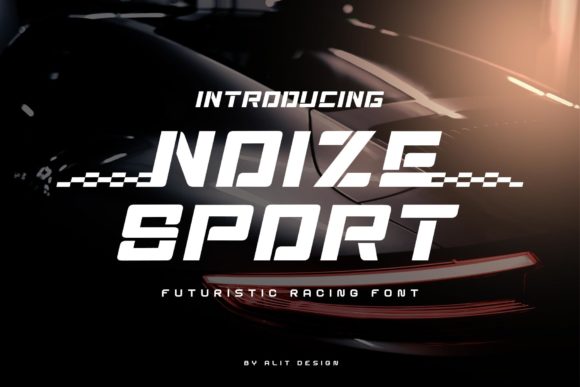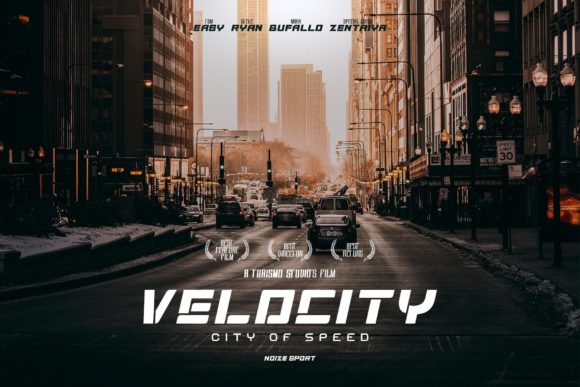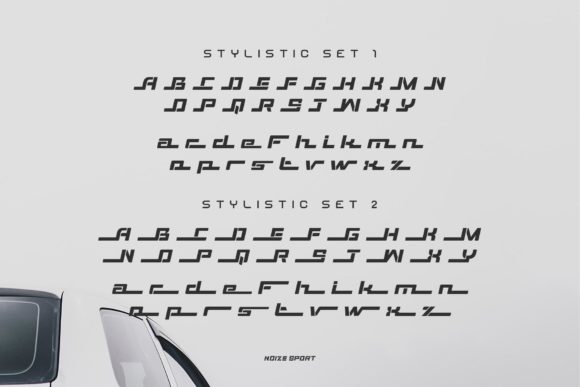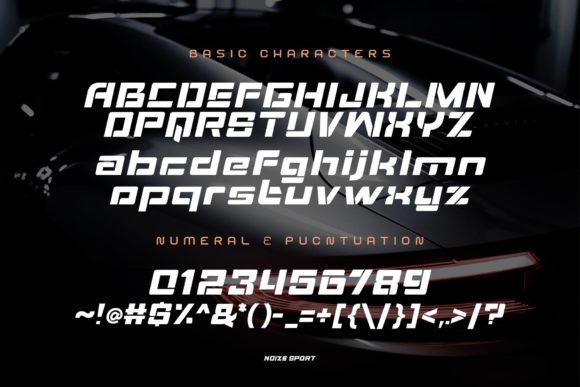
Noize Sport Font: Bold Display Typography for Racing Logo Design
About the Noize Sport Font
Presenting Noize Sport Font, a unique and stylish typeface that will make your work stand out. Noize Sport is a display font inspired by the sports and racing industry. This bold and strong font with an impression of speed is perfect for making sports and racing-themed designs. It can be used for making logo designs, car stickers, racing event titles, and other items with sport race themes.
Noize Sport’s bold, aggressive form makes it ideal for headlines, posters, and short impactful branding elements. Its high contrast and strong strokes lend themselves well to large-scale applications where readability at a distance is key. Avoid using it for body text or UI elements; the weight and stylistic flourishes would hinder legibility in smaller sizes or continuous text.
Consider pairing Noize Sport with a clean sans-serif like Open Sans for supporting text or a more geometric sans-serif like Futura for a modern, high-contrast look. For a slightly softer contrast, a neutral serif like Garamond could work well, adding a touch of sophistication to balance the font’s sporty energy.
The overall personality of Noize Sport is energetic and powerful, making it a strong choice for brands focused on speed, competition, and performance—think motorsports, athletic apparel, or energy drinks.
Noize Sport Font Usage Examples
Noize Sport Font Example